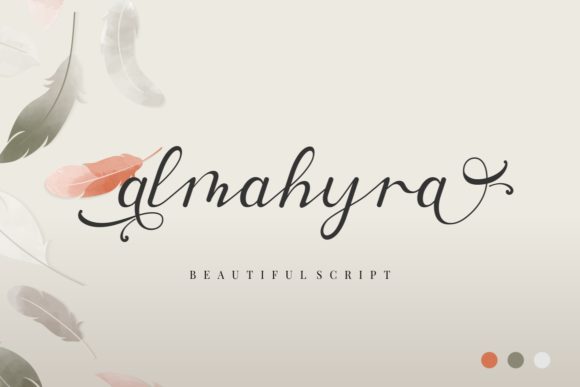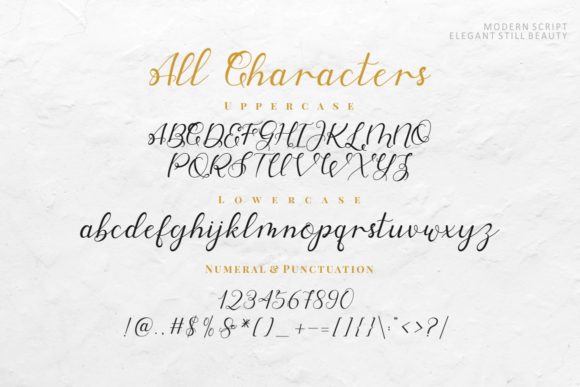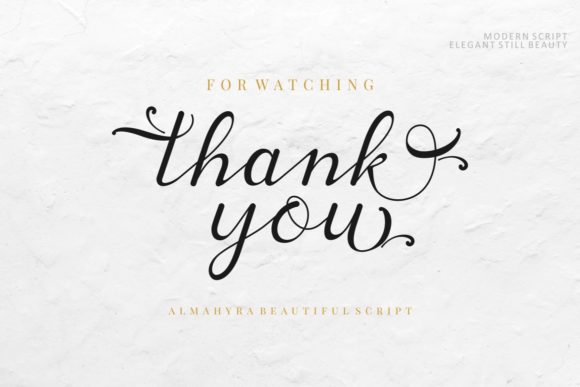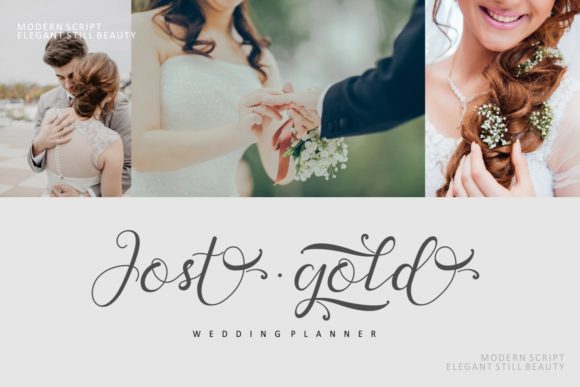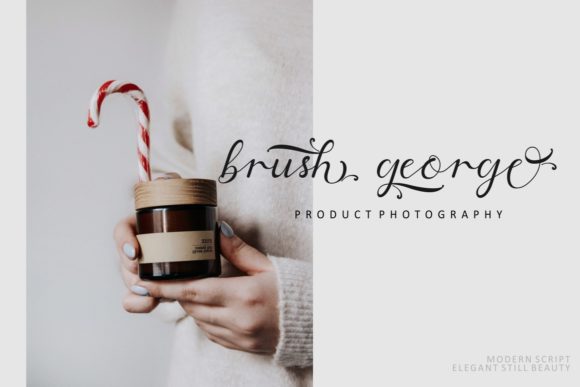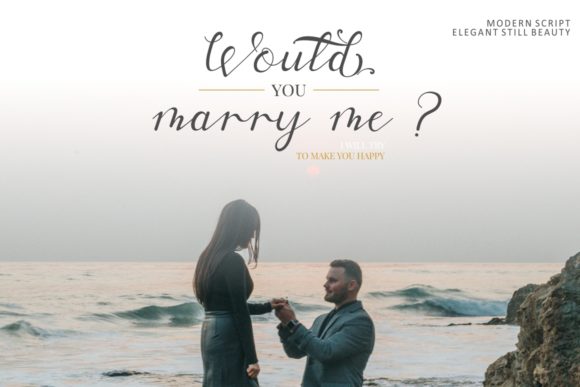
About Almahyra Font
Almahyra is a magical script font carefully created with a touch of elegance. This is a beautiful combination of timeless elegance and authentic calligraphy. It features a varying baseline, smooth lines, gorgeous glyphs and stunning alternates. Fall in love with its authentic feel and use it to create gorgeous wedding invitations, beautiful stationary art, eye-catching social media posts, and cute greeting cards.